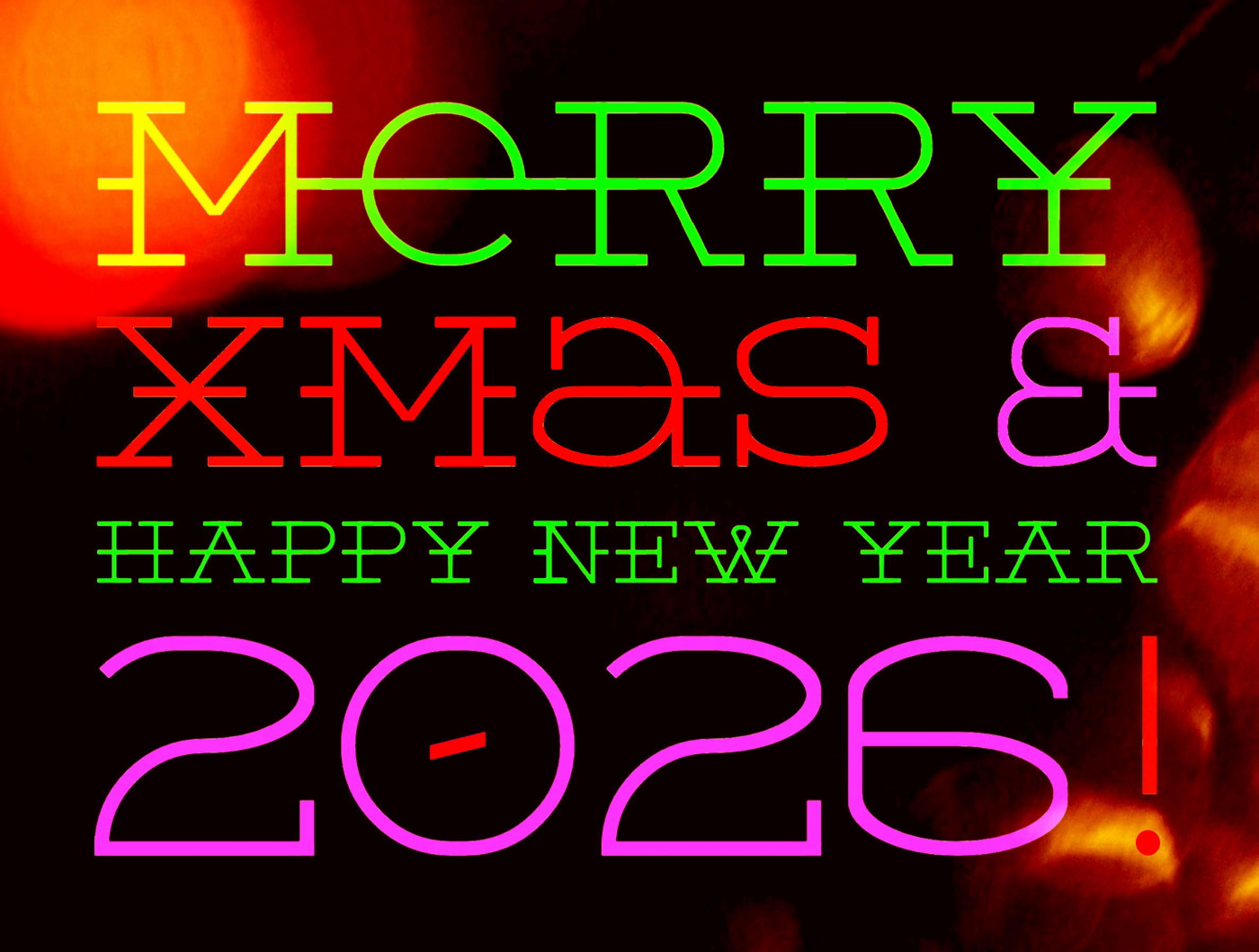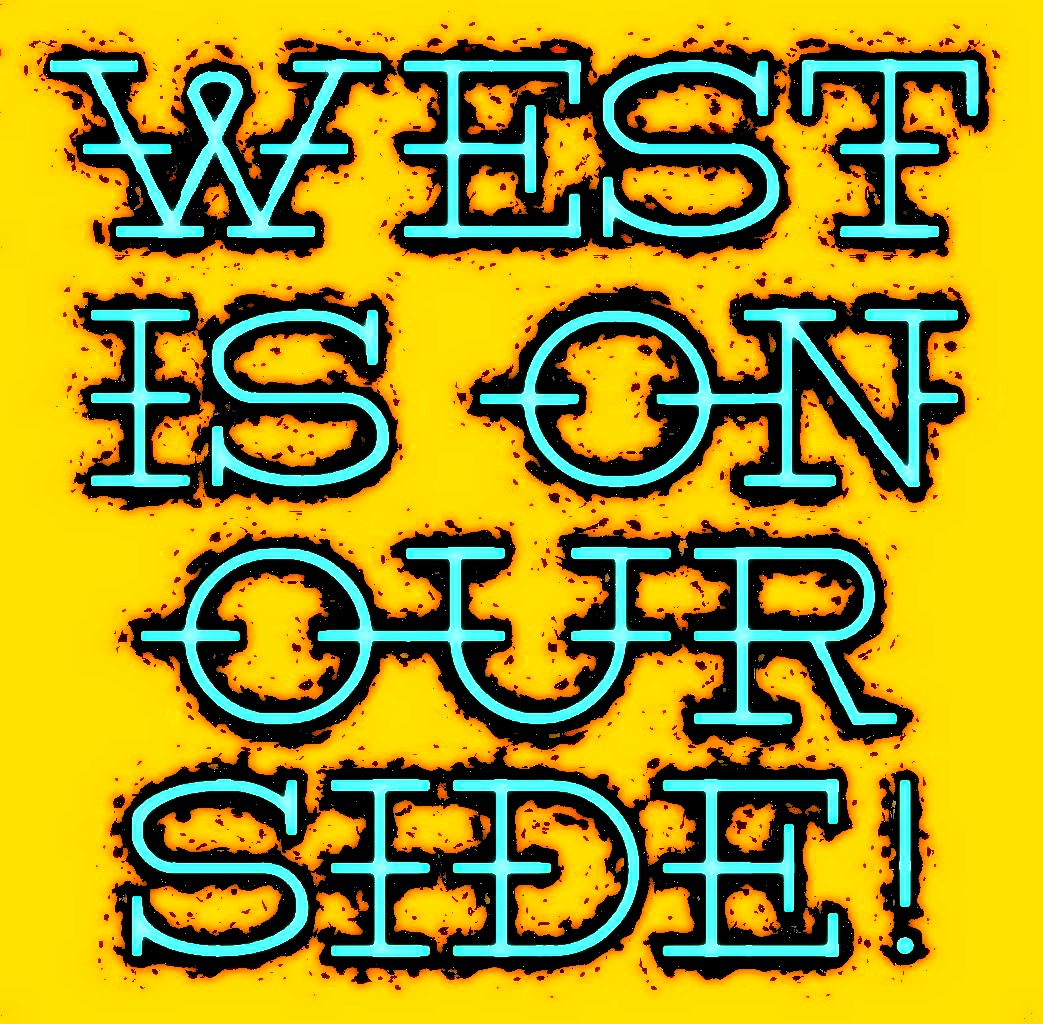
Happy holidays! Sorry, I can't stop complicating some fonts, now with these large intermediate serifs (but they looks nice!). All seemed simpler when I started it, but... Just unicase with alternates (and a lot of kerning needed => WIP).
This font is very good!
Feliz navidad amigos! Nice christmas gift for FS community, and a well-earned top pick, @elmoyenique.
very good! i rate it 9/10
Wonderful slab serif with some surprising connections. Happy New Year!
Love the little loop in the "W"
this is beautiful.
I love the uppercase W! Great western font! Oh, also I am back now, I left because of loss of motivation.